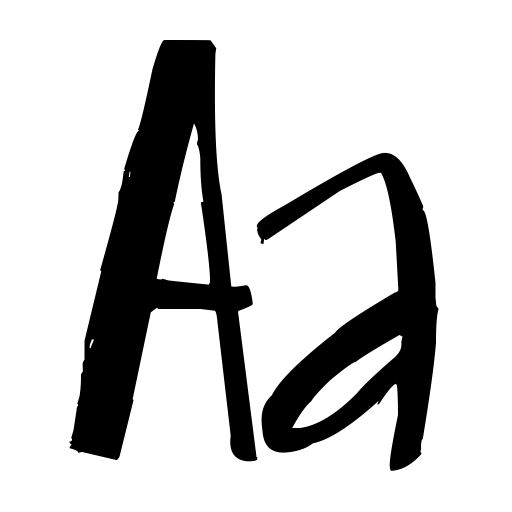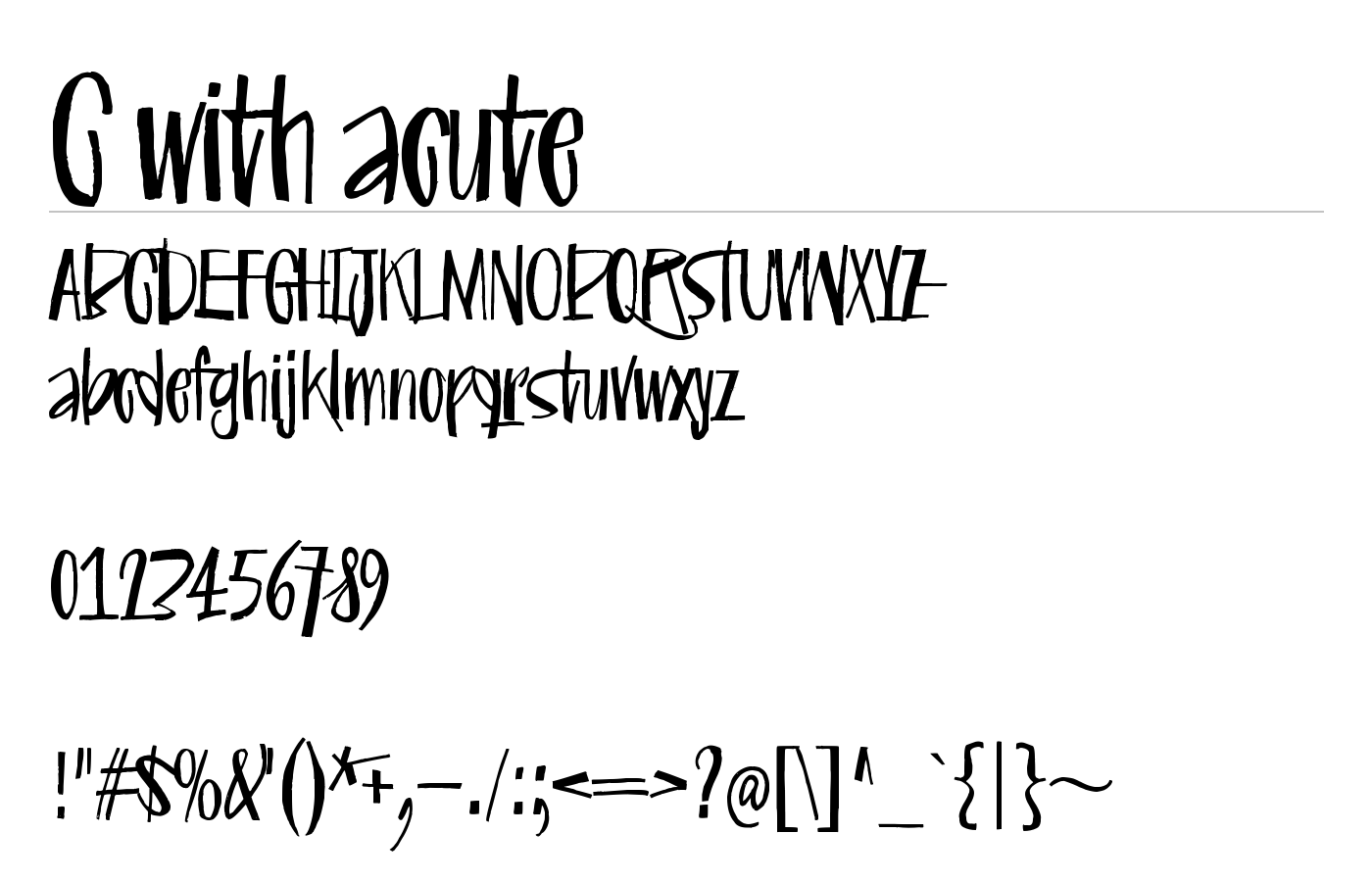
C with acute Font is a quirky, hand-drawn sans serif typeface with a playful and informal feel. Its uneven strokes and irregular letterforms give it a lively, artistic character, making it ideal for creative projects, casual branding, and expressive headlines where a personal touch is desired. This font works well in contexts that call for fun and uniqueness rather than formal or traditional looks.
C with acute Font
About C with acute Font
| Font family | C with acute Font |
| Designer | junkohanherö 2022 |